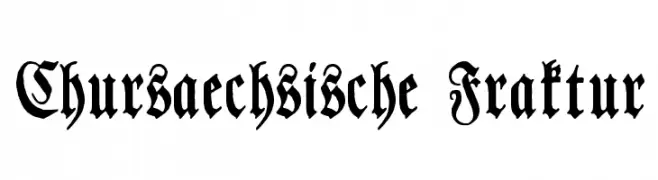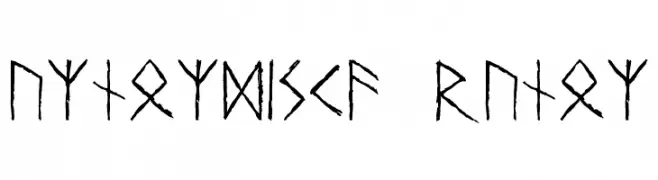
A decorative blackletter font with ornate, medieval-inspired designs.
An ornate Blackletter font with intricate details and a gothic aesthetic.
A bold, mystical font with angular, runic-like characters.
A bold, intricate Blackletter font with ornate, angular letterforms.
An ornate and decorative font with intricate flourishes and sharp serifs.
An ornate, medieval-inspired font with intricate flourishes and sharp serifs.
A bold, ornate Blackletter font with intricate medieval design.
A gothic, medieval-inspired font with ornate, high-contrast letterforms.
A bold, blackletter font with a distressed, gothic appearance.
A bold, gothic blackletter font with intricate, dramatic details.
A classic Gothic font with sharp, angular lines and intricate detailing.
A decorative Gothic-style font with intricate, angular designs and ornate details.
A bold, ornate Blackletter font with gothic and medieval influences.
A bold, Gothic-style font with intricate and angular letterforms.
A bold and intricate blackletter font with gothic flourishes.
A decorative font with medieval, handcrafted elements and intricate details.
A classic Gothic-style font with intricate, angular strokes and elaborate serifs.
A bold, ornate blackletter font with a medieval, gothic style.
A bold, medieval-inspired font with intricate details and dramatic flair.
An ornate, calligraphic font with intricate flourishes and sharp serifs.
A bold, ornate Blackletter font with a medieval aesthetic.
A decorative blackletter font with intricate, medieval-inspired letterforms.
A classic blackletter font with ornate and intricate letterforms.